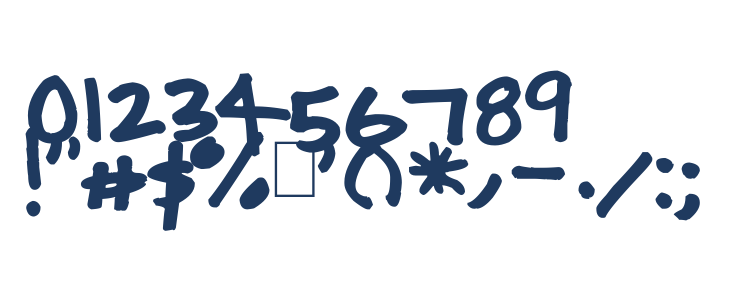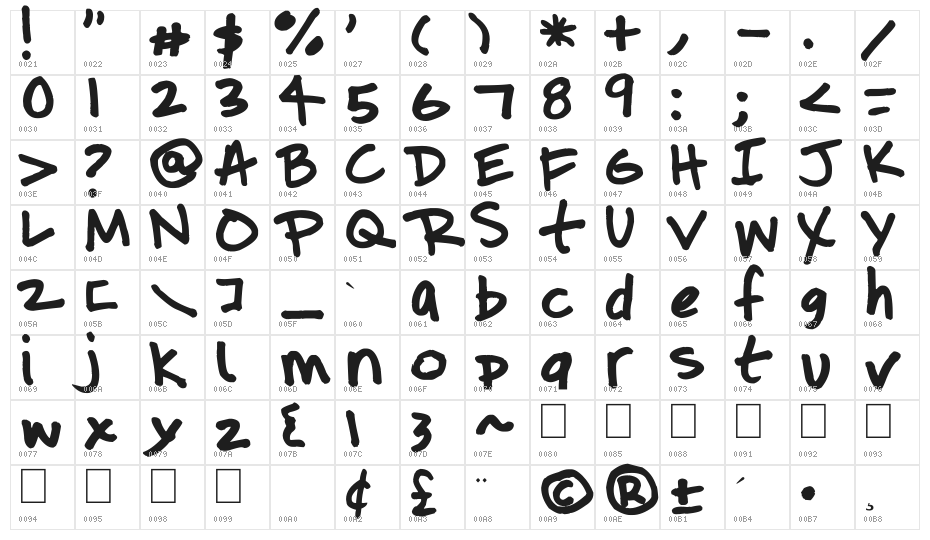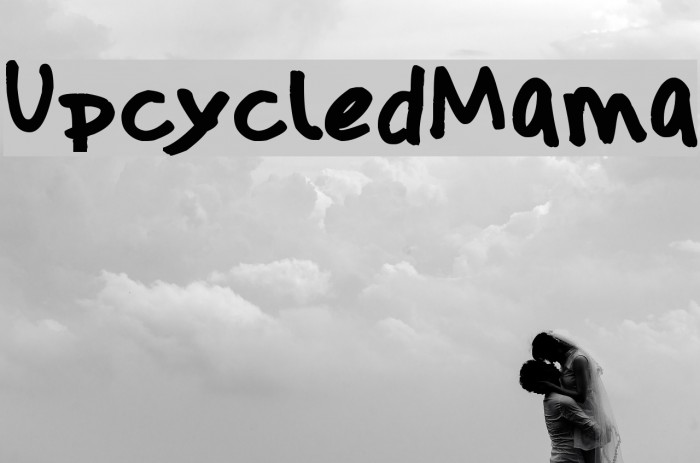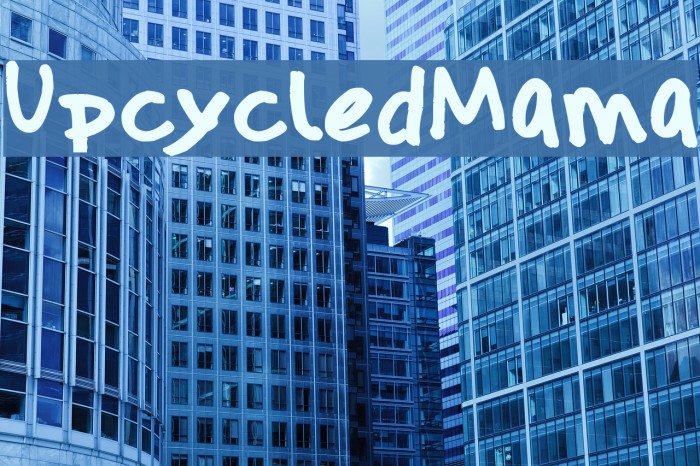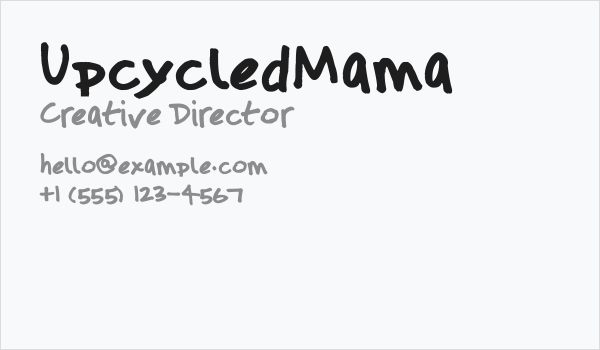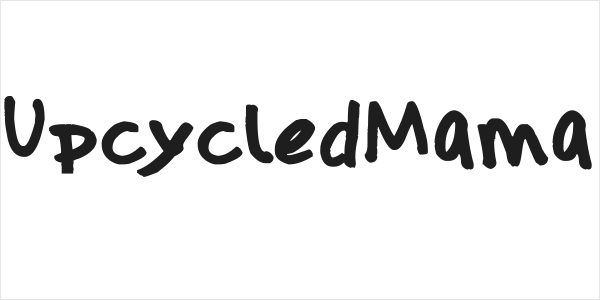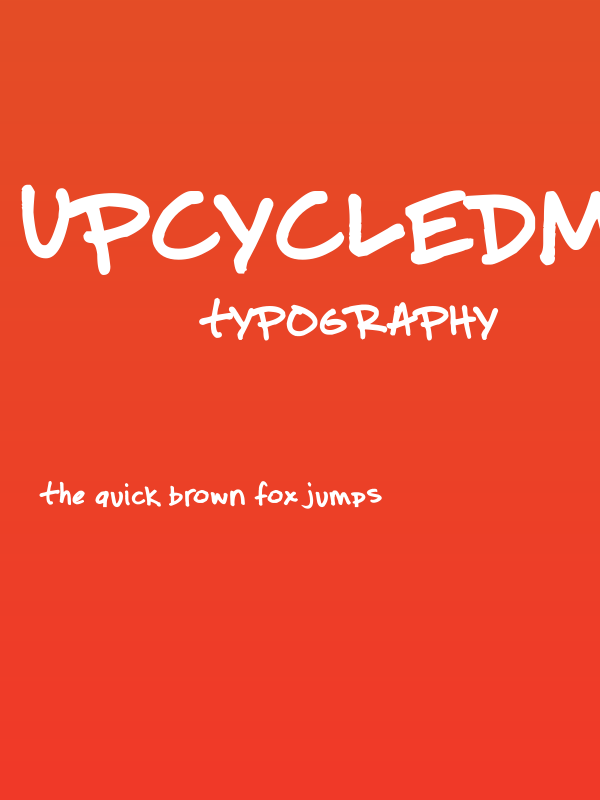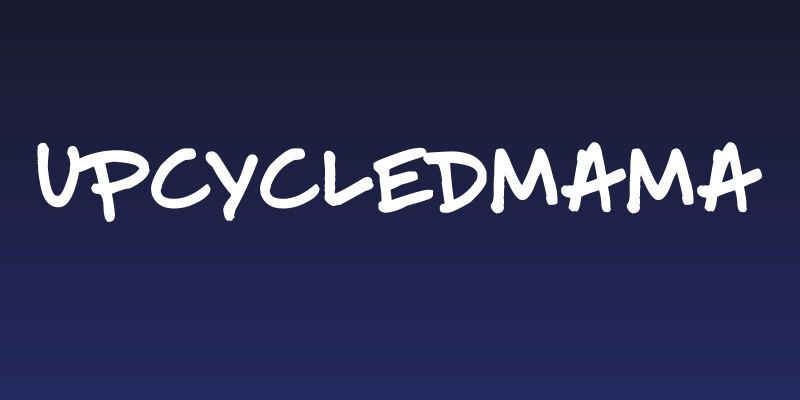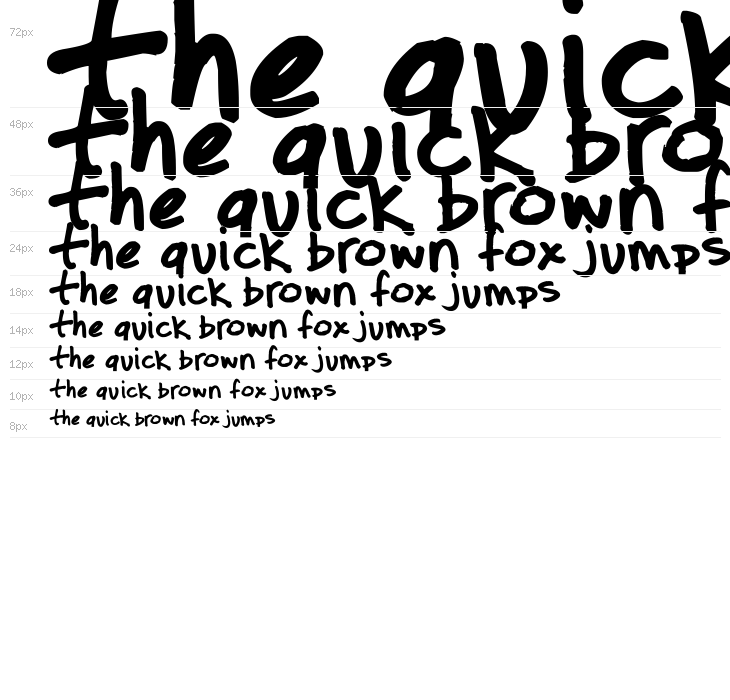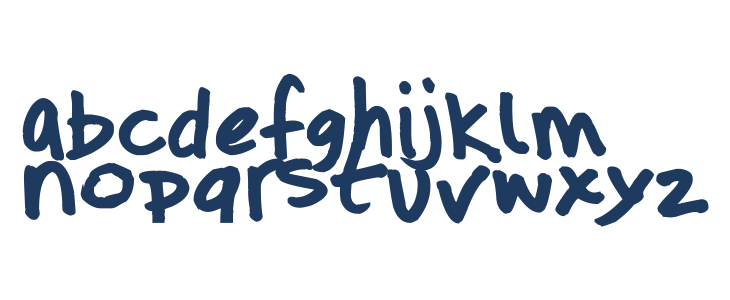
UpcycledMama Font
UpcycledMama Description
This font features a playful and casual handwritten style, characterized by its bold and slightly irregular strokes. The letters have a natural flow, with a slight tilt that adds to its informal appearance. The uppercase and lowercase letters maintain a consistent style, with rounded edges and a friendly demeanor. Numbers and special characters follow the same aesthetic, ensuring a cohesive look across all text elements. The overall design is approachable and lively, making it suitable for projects that require a personal touch.
| Overall Style | Casual |
| Use Case | Headlines, Logos, Informal Text |
| Proposed Projects | Ideal for greeting cards, children's books, casual branding, and social media graphics. |